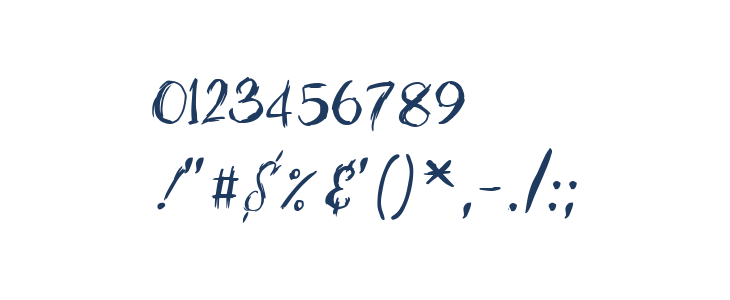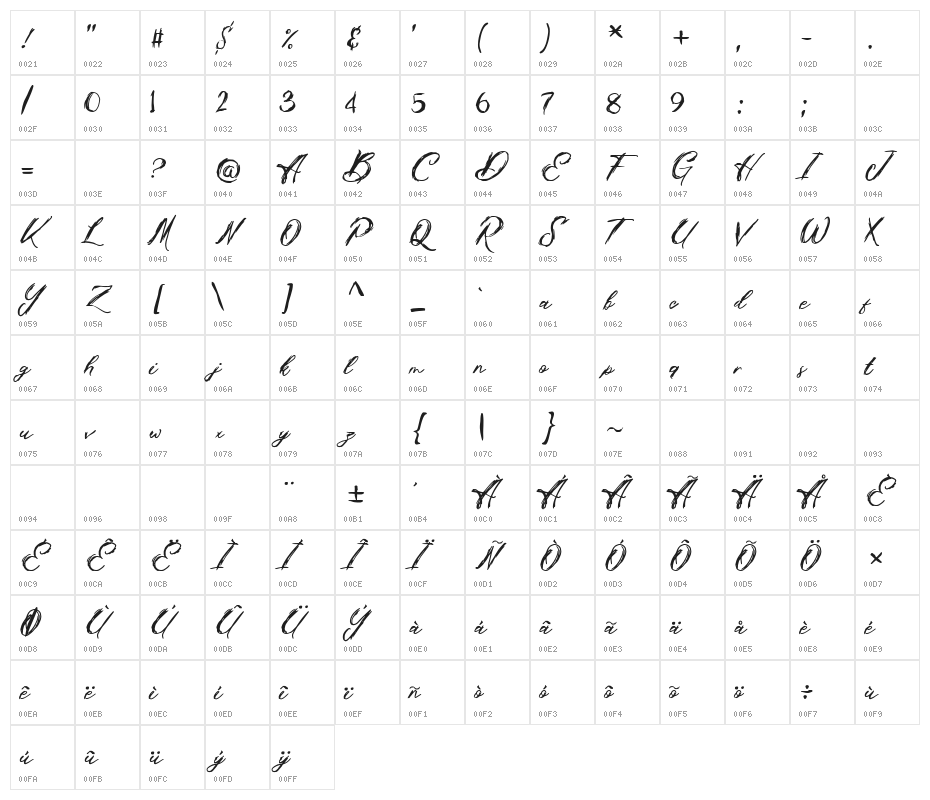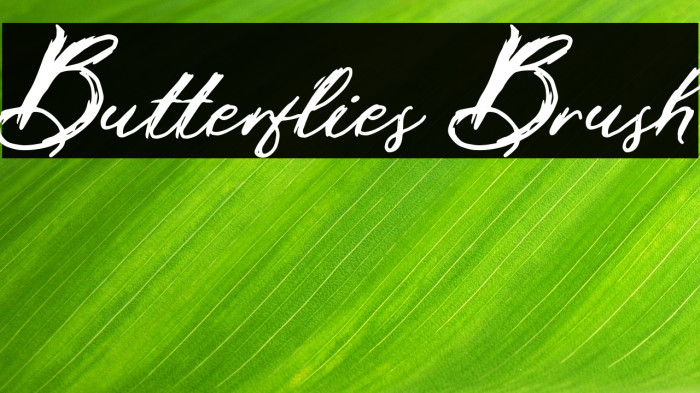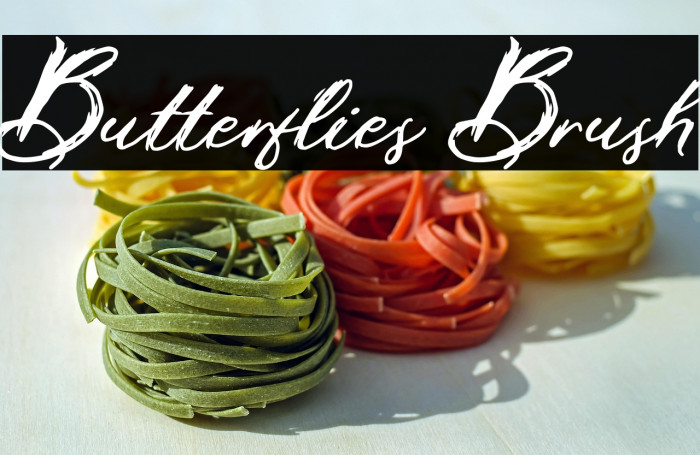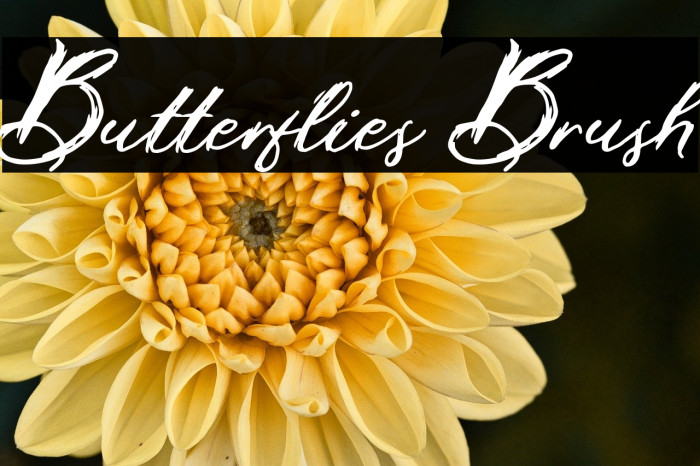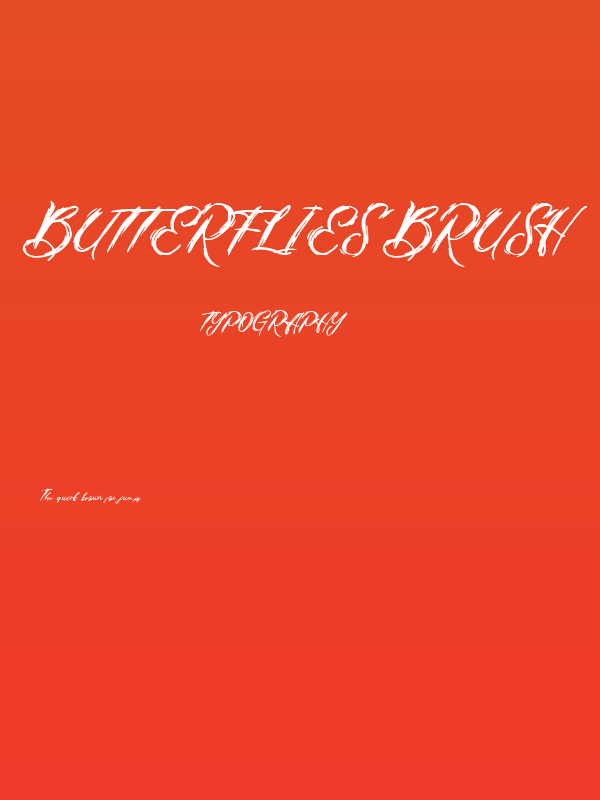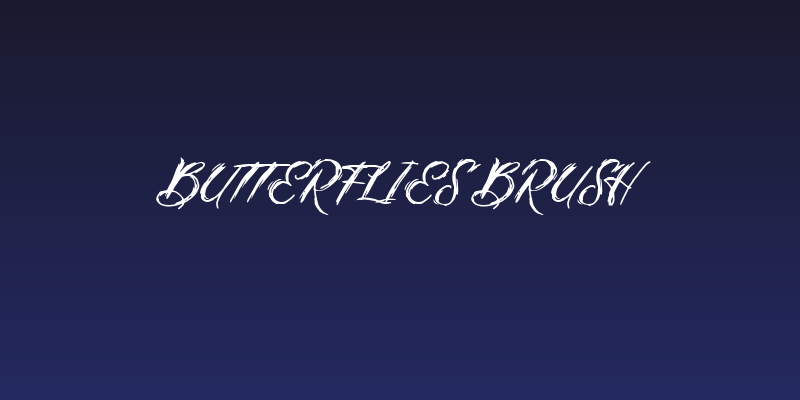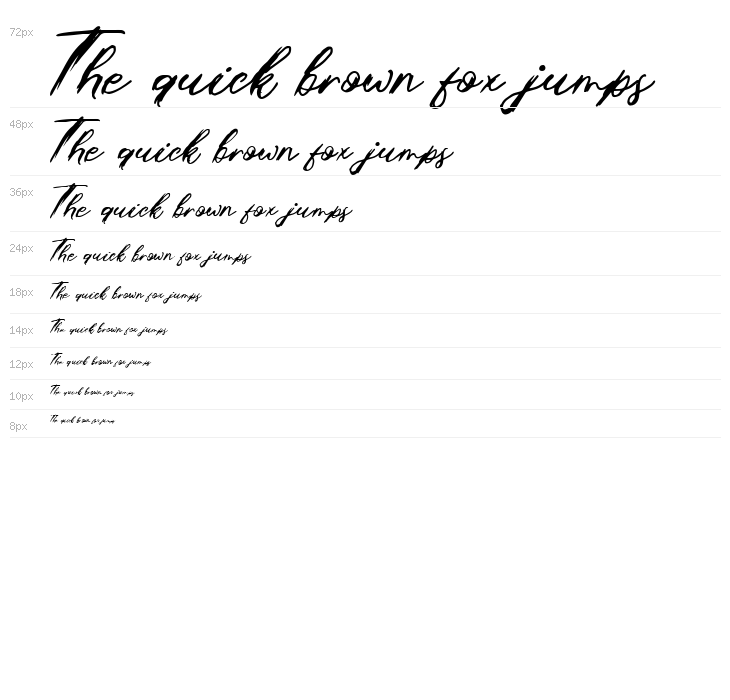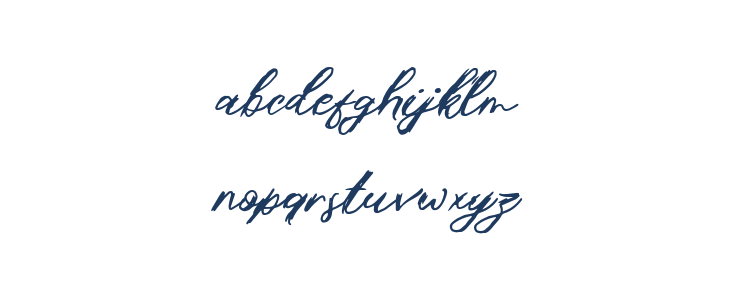
Butterflies Brush Font
Butterflies Brush Description
This font exhibits a dynamic and expressive brush script style, characterized by its flowing, cursive letterforms that mimic the fluidity of hand-painted strokes. The uppercase letters are bold and dramatic, with sweeping curves and varying line thicknesses that create a sense of movement and energy. The lowercase letters maintain a cohesive style, offering a more compact and slightly more restrained appearance. Numbers and special characters follow the same artistic brush style, ensuring consistency throughout. The font's overall aesthetic is both artistic and informal, making it ideal for projects that require a personal touch or a creative flair.